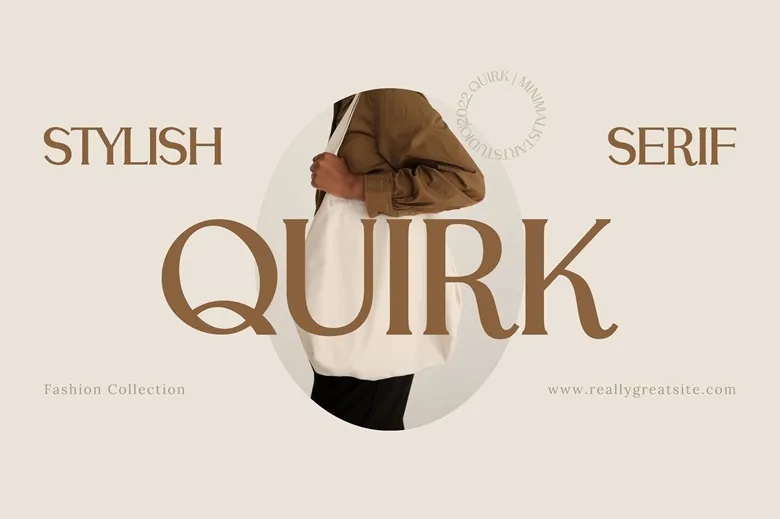
Quirk Serif Font
Quirk is an elegant and stylish serif typeface. It includes uppercase letters, numerals, and a wide range of punctuation. This font works well for posters, web design, branding, illustrations, badges, and more.